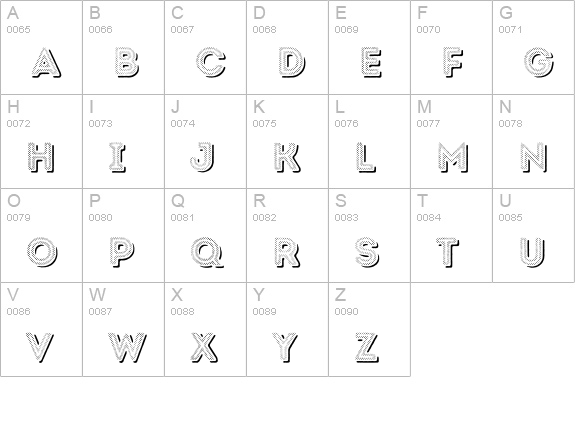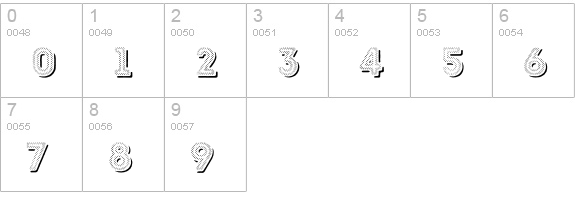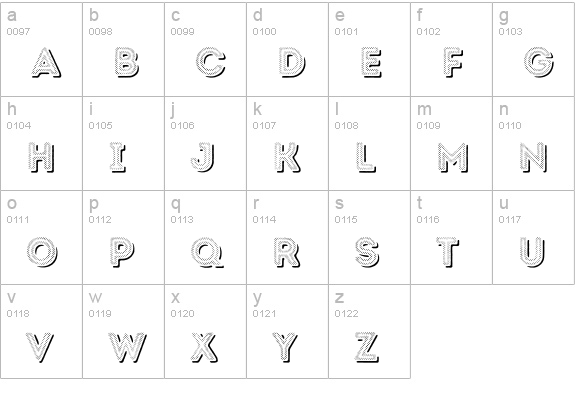
Intro Rust H1 Fill 2 Shade Font Details
The Intro Rust H1 Fill 2 Shade font is a striking display typeface that exudes a bold and modern aesthetic. With its unique design featuring a combination of filled and shaded elements, this font commands attention and adds a dynamic touch to any design project. The contrast between the solid fill and intricate shading creates a visually captivating effect that is sure to make your text stand out. What sets Intro Rust H1 Fill 2 Shade apart is not only its eye-catching appearance but also the fact that it is available for free. Yes, that's right - this impressive font can be downloaded at no cost from FontsMarket.com. Whether you're working on a poster, logo, or any other creative endeavor, this font is a versatile choice that will elevate your design to the next level. Add a touch of modern flair to your projects with Intro Rust H1 Fill 2 Shade and make a lasting impression on your audience.